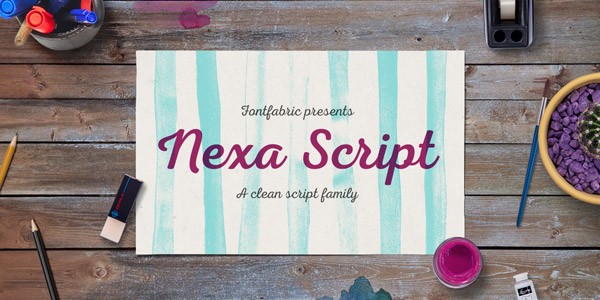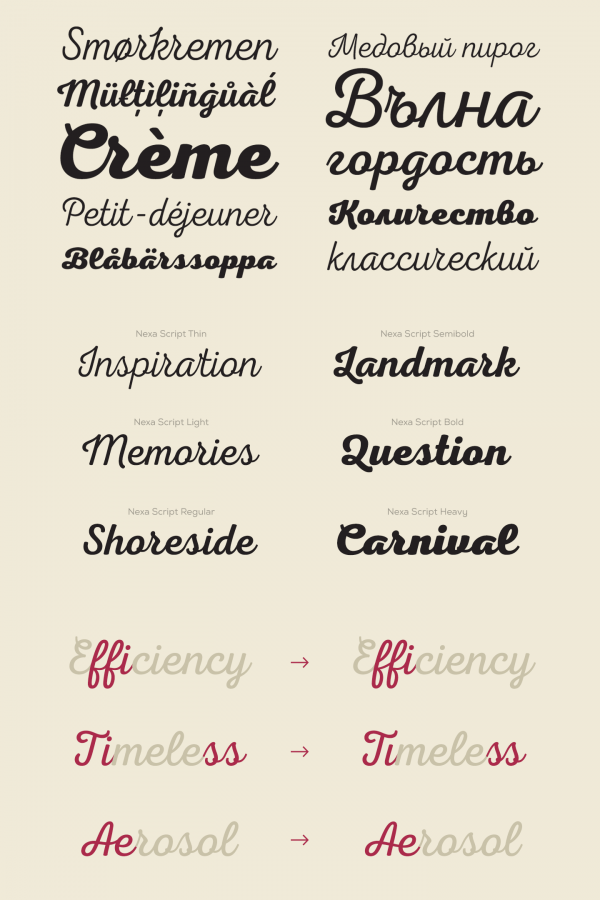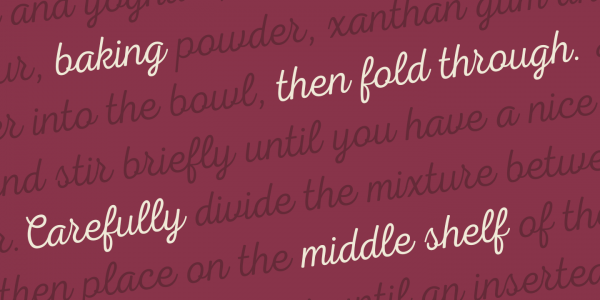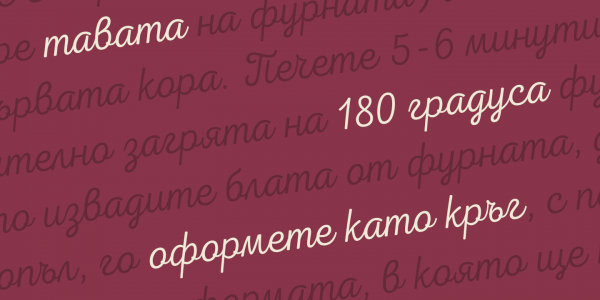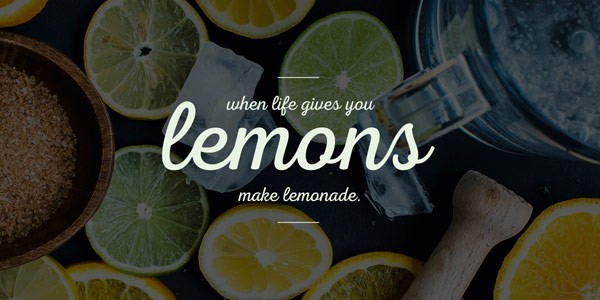
Nexa Script, a clean version of the multifaceted font system Nexa Rust.
Look at this beautiful typeface! The team of Fontfabric has published Nexa Script, a clean and sober version of the popular Nexa Rust family. The harmonious shapes of this vintage-inspired script font can be combined easily with the other members of this extensive type system (Nexa and Nexa Slab).
Nexa Script offers diverse OpenType features such as ligatures, fractions, alternate characters, superscripts and subscripts, and much more. It includes six weights ranging from Thin to Heavy. You can use this family for headlines, subheadings, short titles, quotes and slogans. The Nexa Script font family cuts a fine figure in both printed applications and on screen. It can be a striking typographic feature on t-shirts, signage, posters, websites, etc. If you want to know more about this beautiful script typeface, do not hesitate and follow the link below.